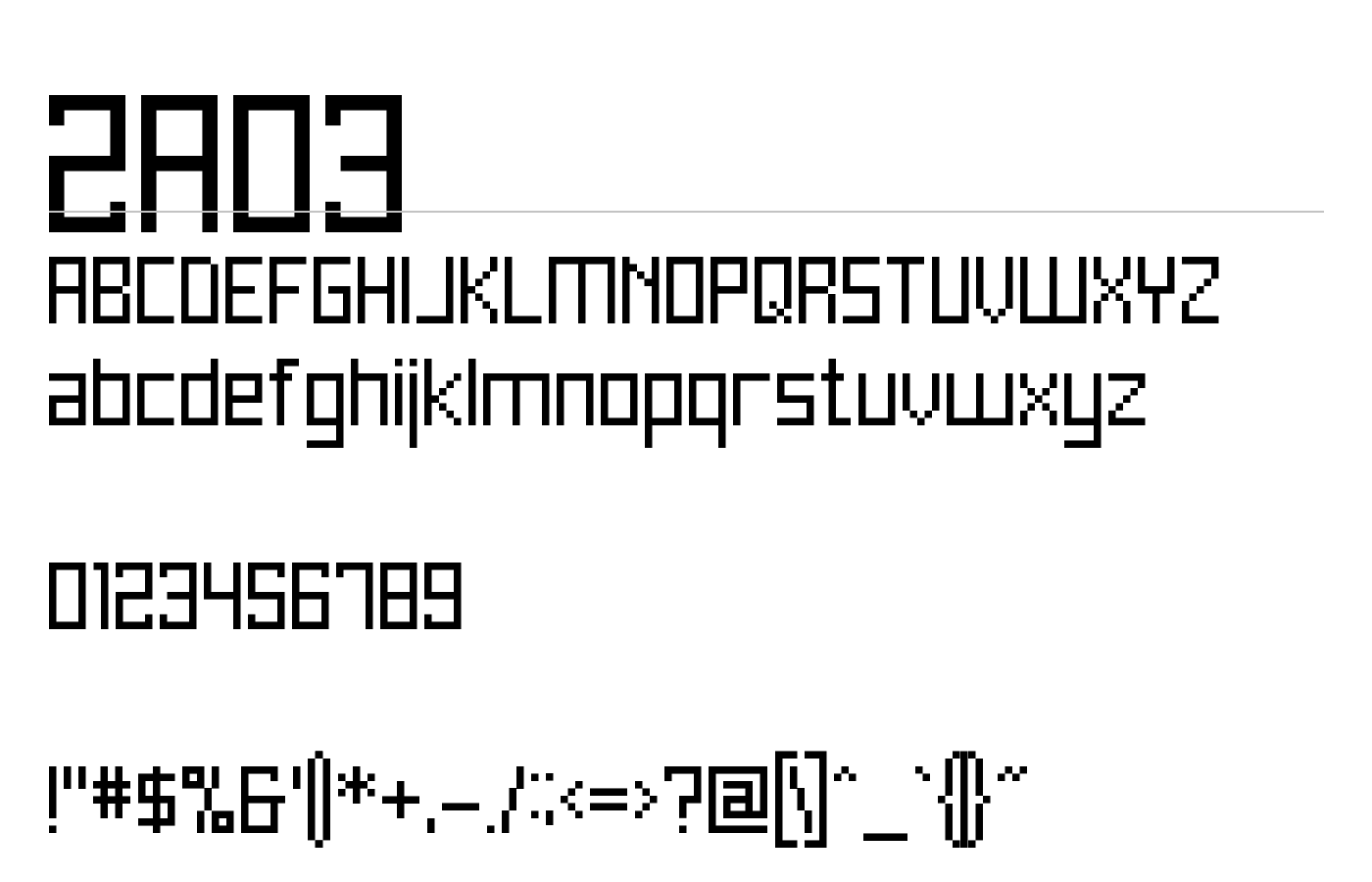
2A03 is a distinctive pixel-inspired sans serif font characterized by its geometric, blocky shapes and consistent stroke weight, evoking a retro digital or video game aesthetic. Its narrow width and squared letterforms make it ideal for tech-themed designs, digital interfaces, and creative branding that seeks a modern yet nostalgic vibe. This font works best in headlines, logos, and on-screen text where clear readability and a strong visual impact are desired.
2A03 Font
About 2A03 Font
| Font family | 2A03 Font |
| Designer | memesbruh03 |